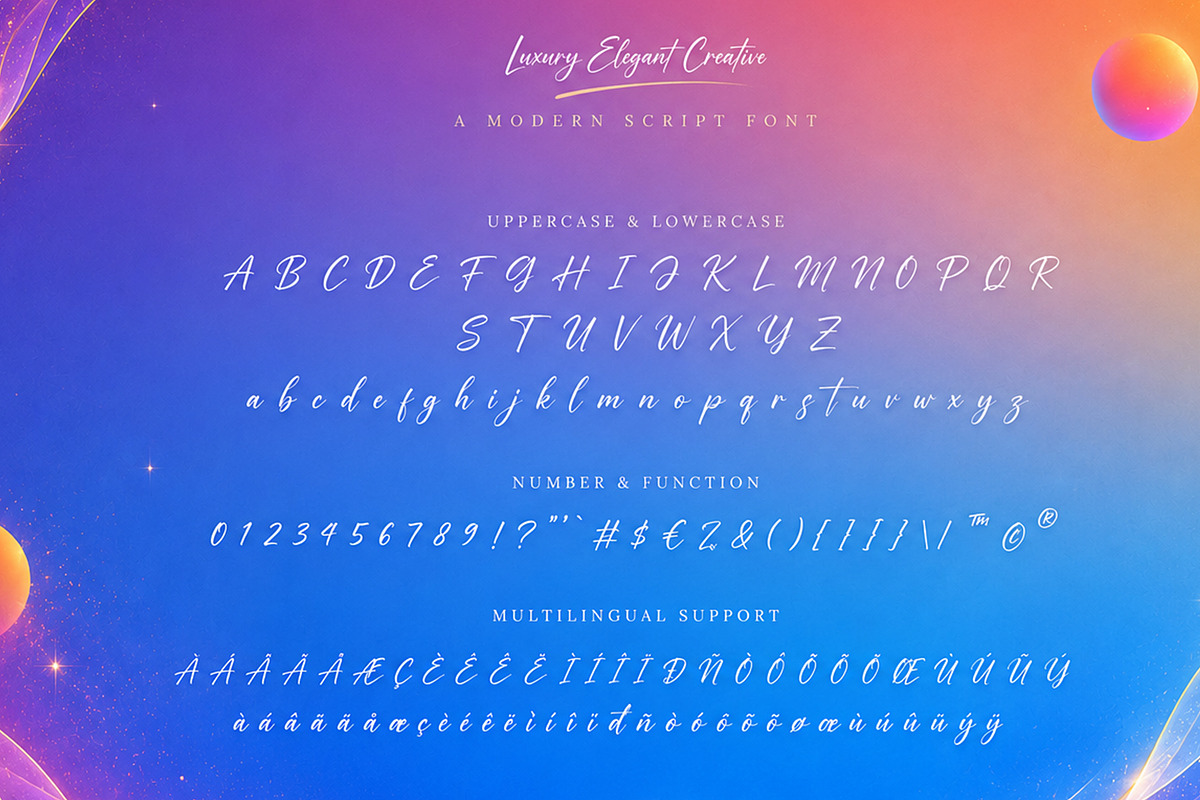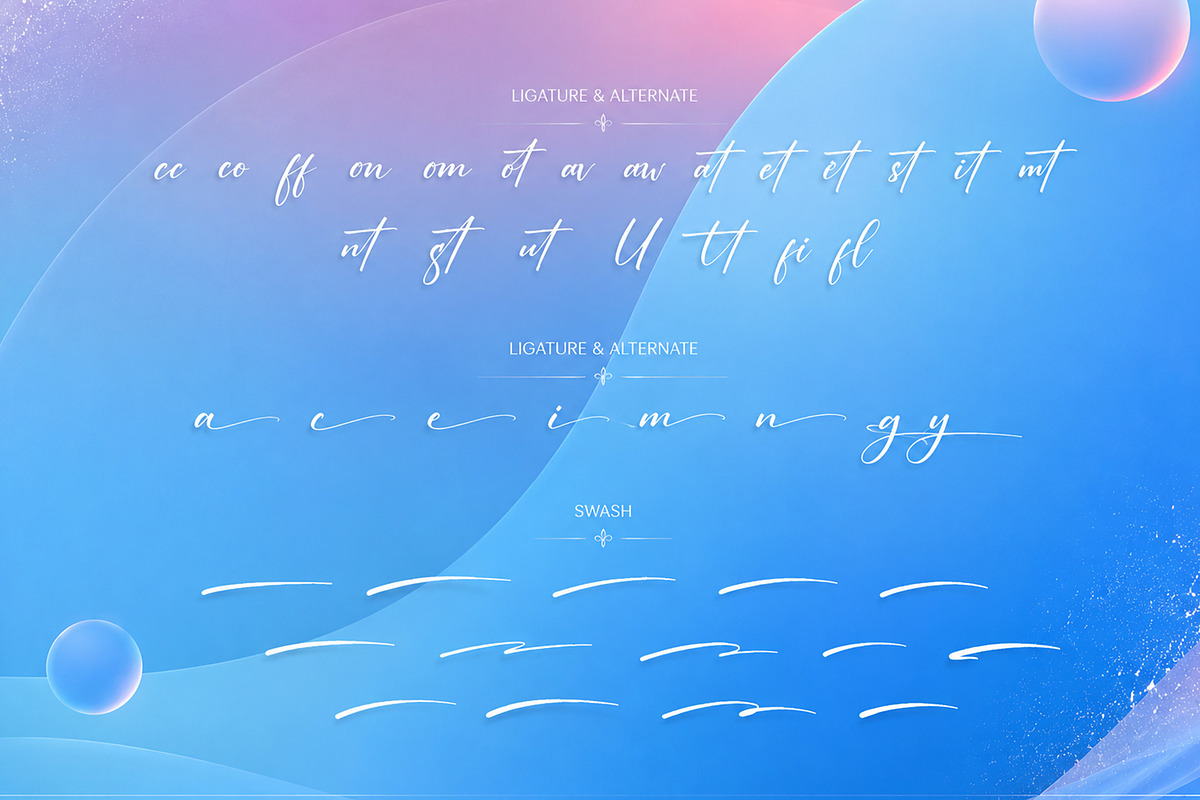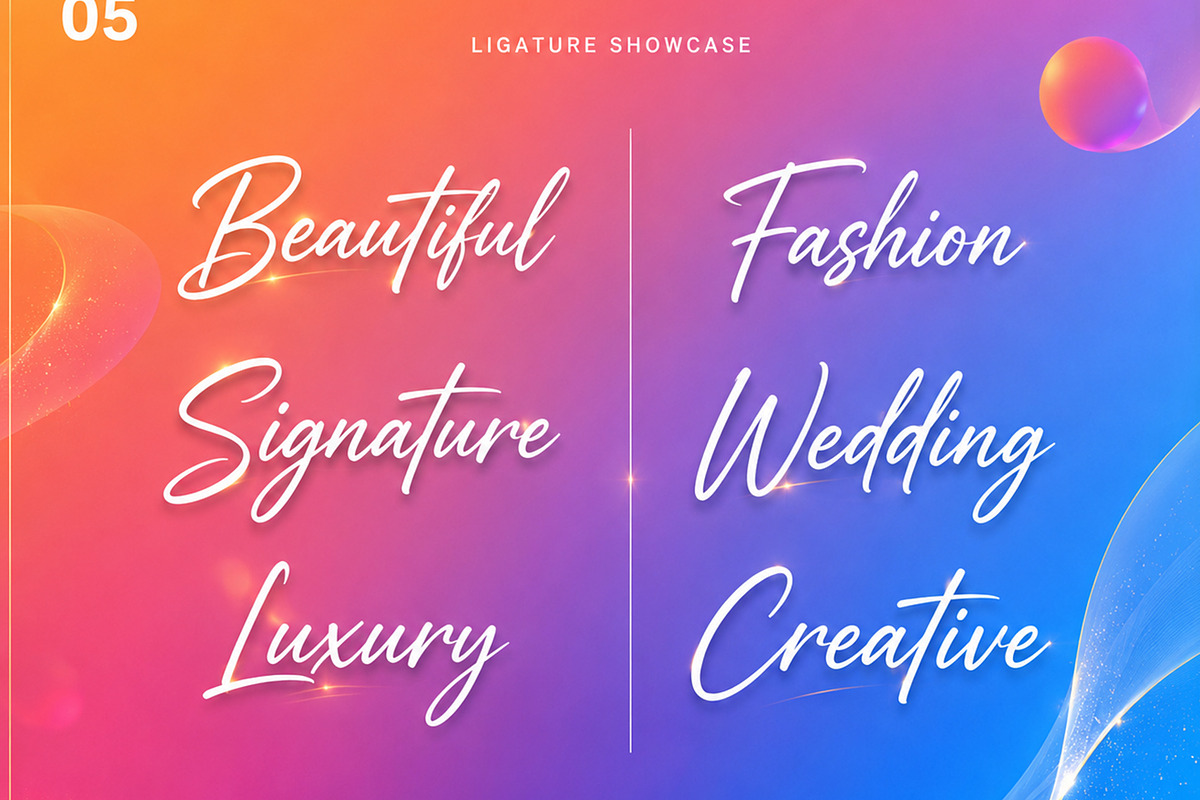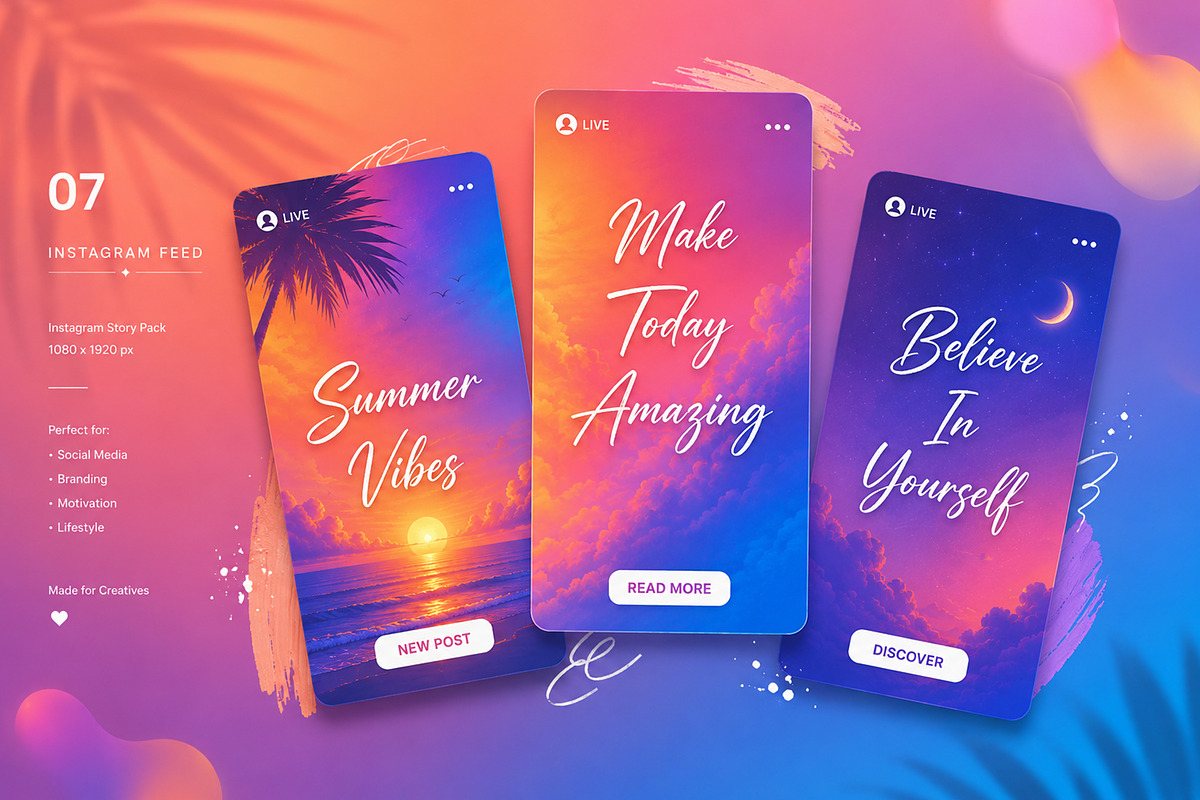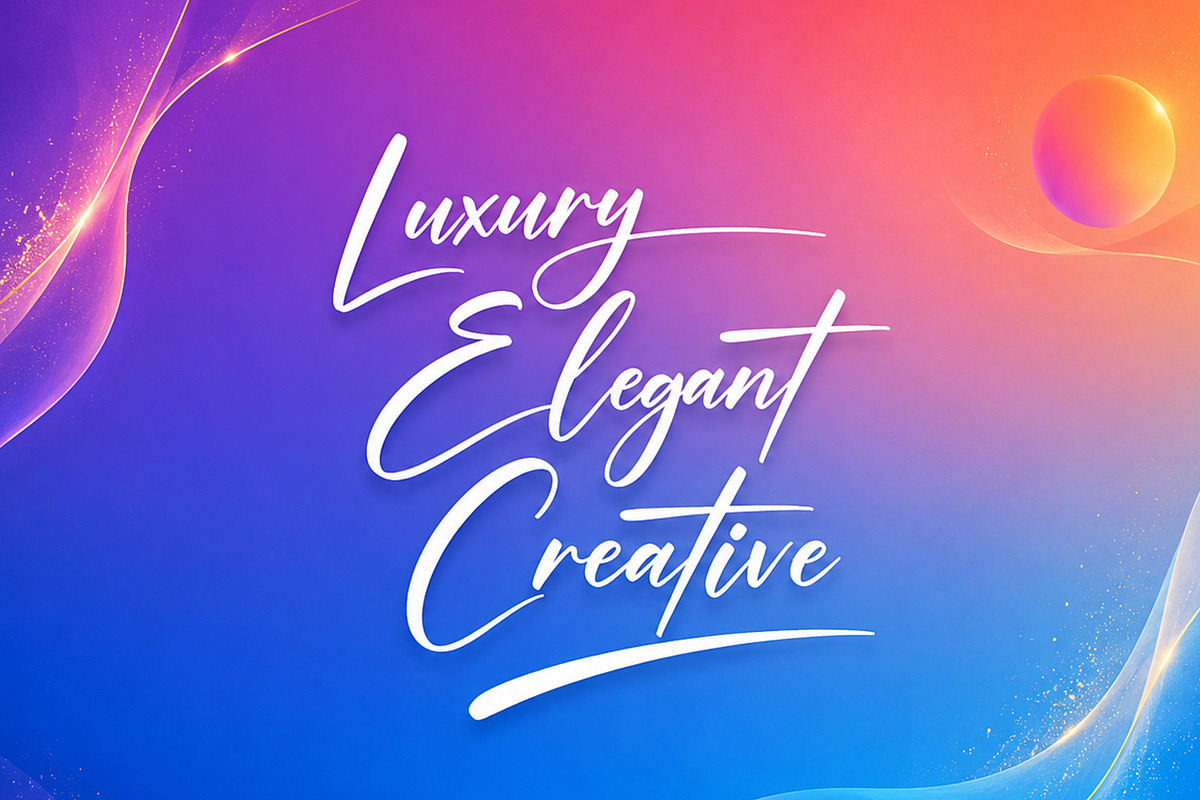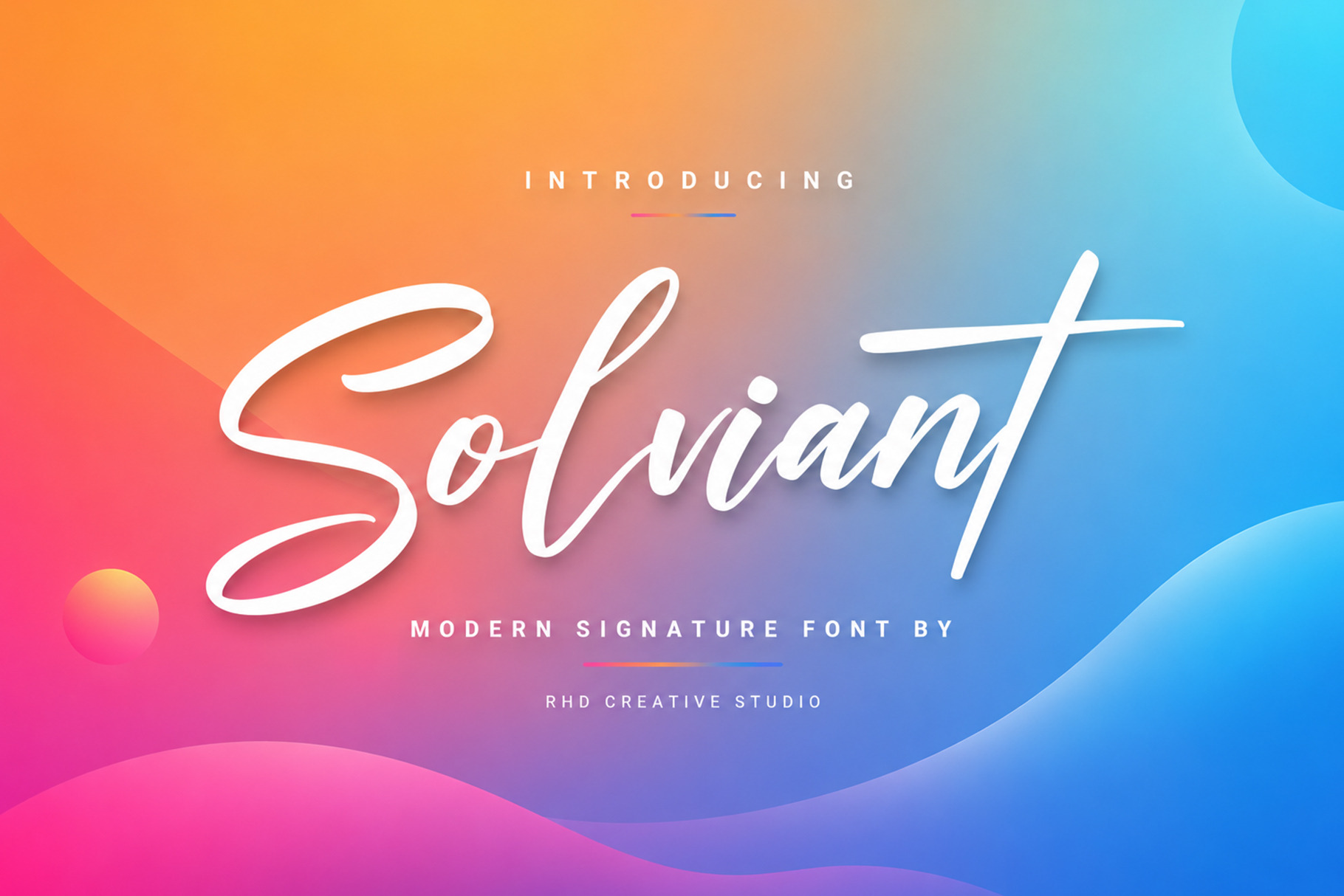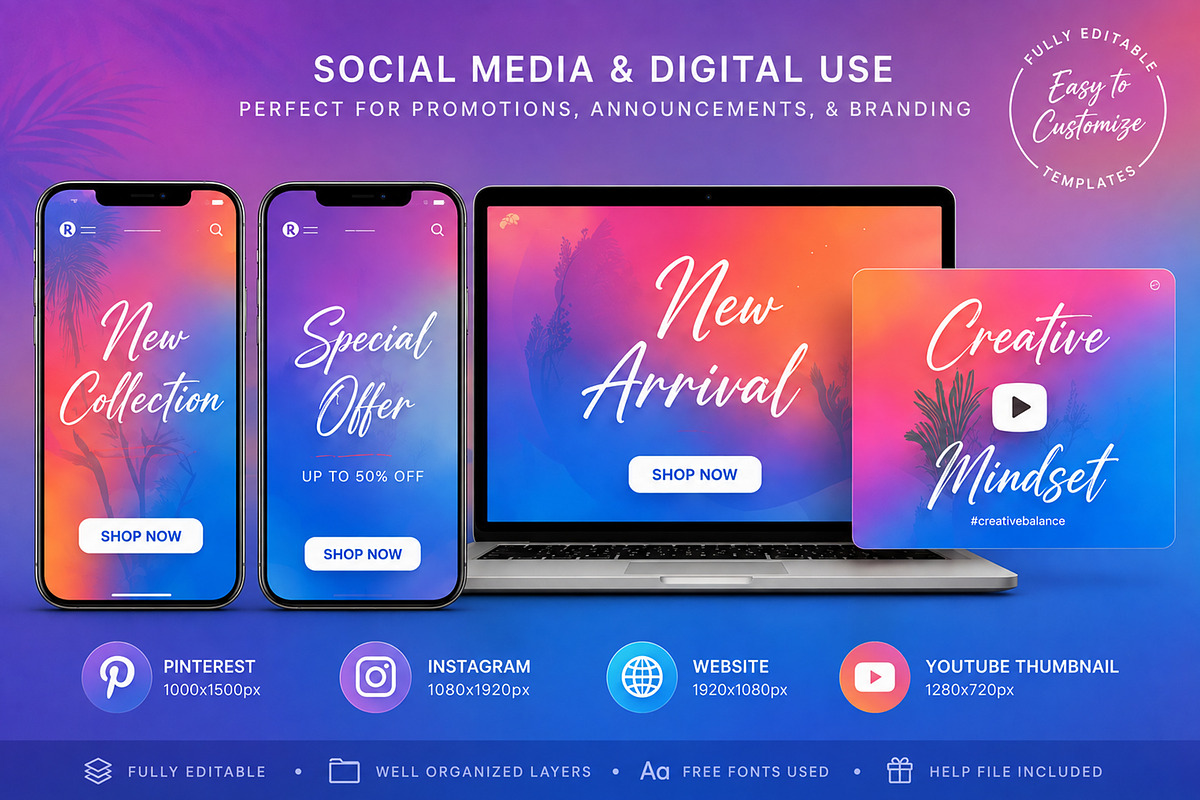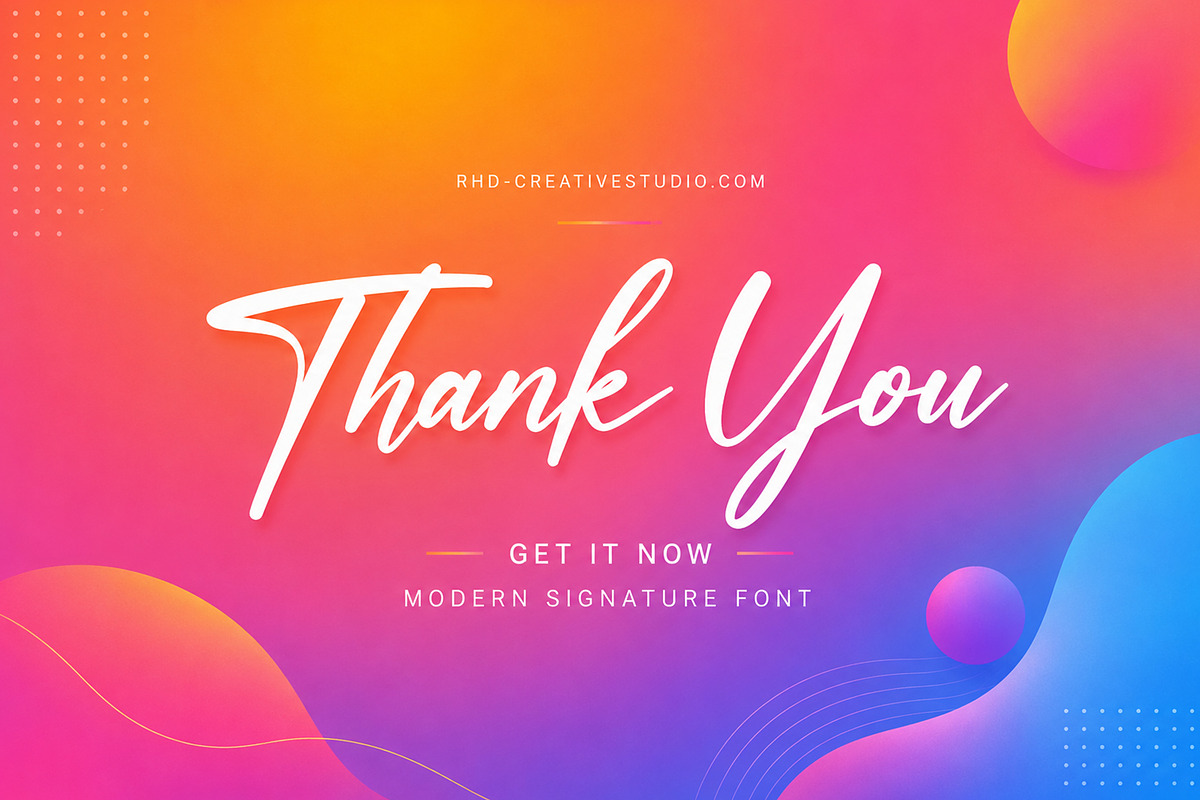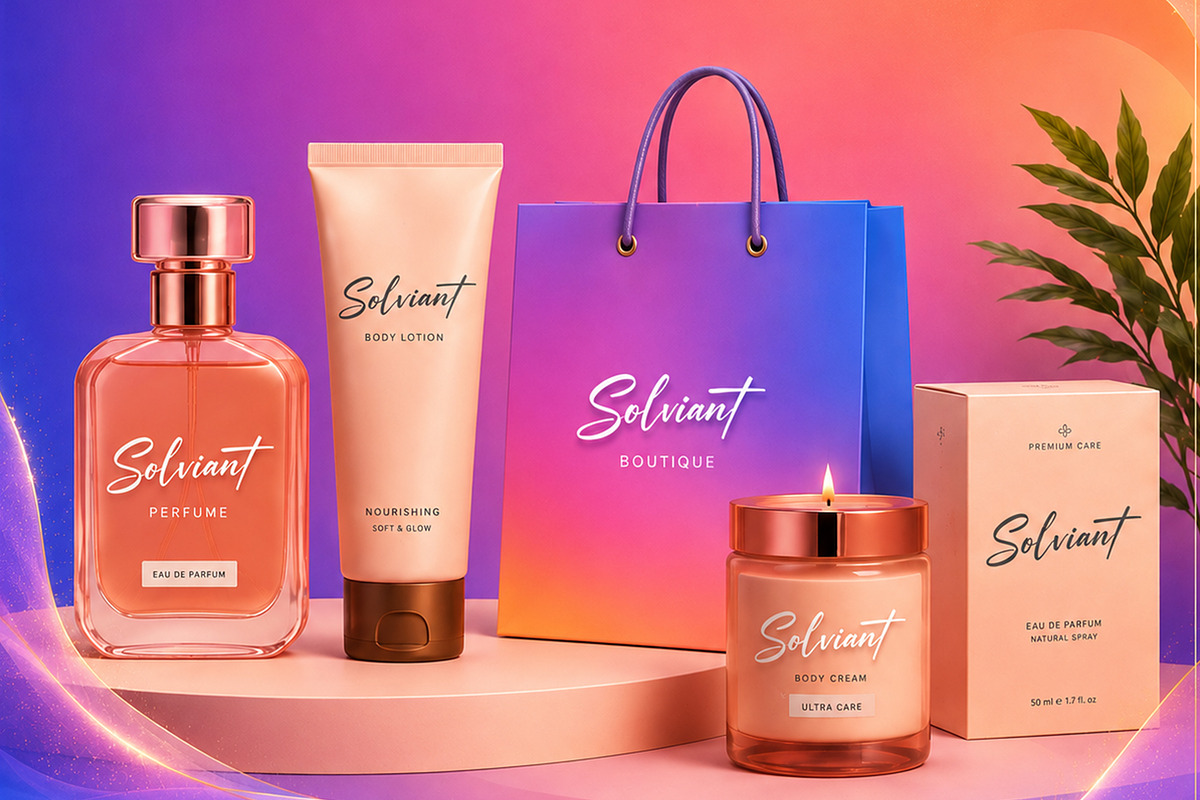
Solviant - Handwritten Script Font
Solviant - Handwritten Script Font with Handmade character. Solviant - Handwritten Script Font, Modern font to make your design project stand out! Solviant a perfectly choice for any creative endeavor, creating, modern, chic, lifestyle design such as logotype, title, cover, branding, invitations, wedding designs, display and magazine, social media posts, advertisements, printed quotes, product packaging, corporate brand, product designs, labels, photography, watermarks, special events and any other project with modern touch.